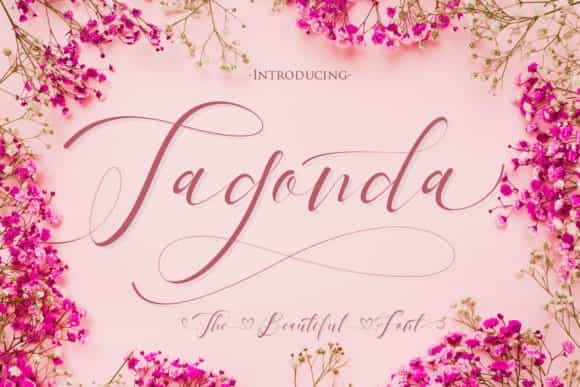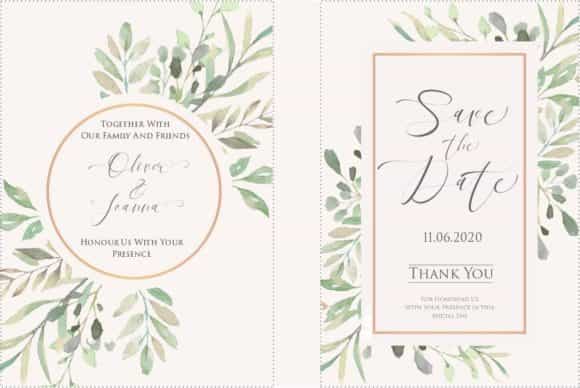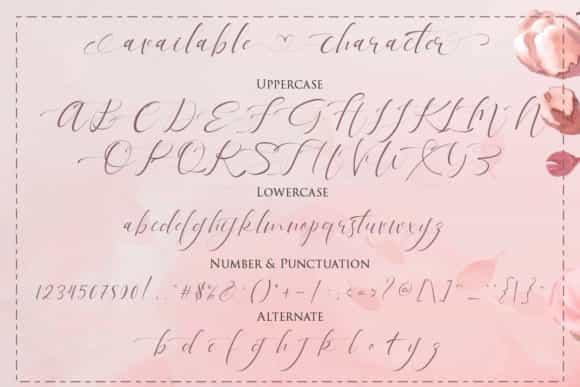
Tagonda – a beautiful, modern and new alluring calligraphy typeface with a lot of alternative styles, ligatures, and swashes, that also has multilingual support! For lettering freaks in my life,guys! It will be a dream come true for your crafty fantasies because of its romantic, delicate and charming design.